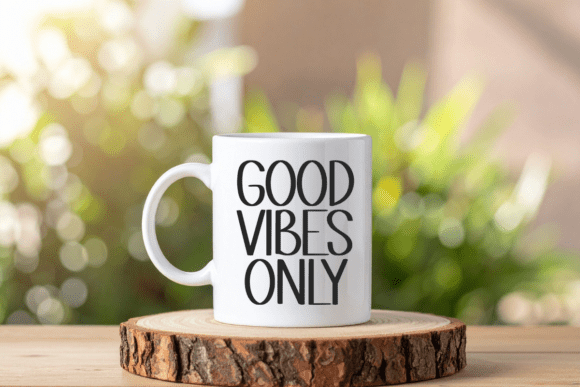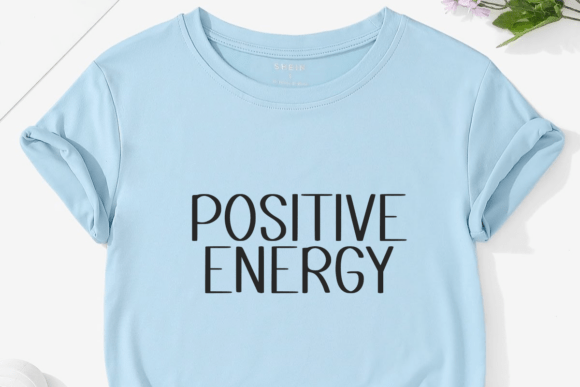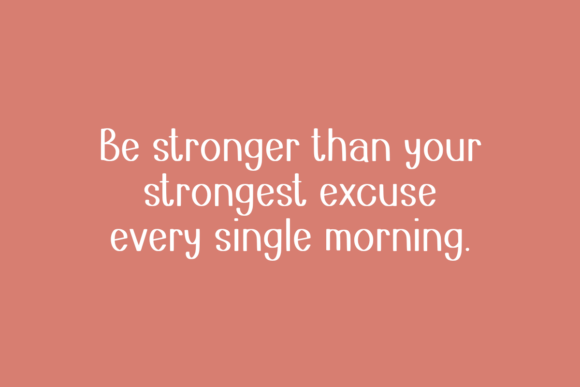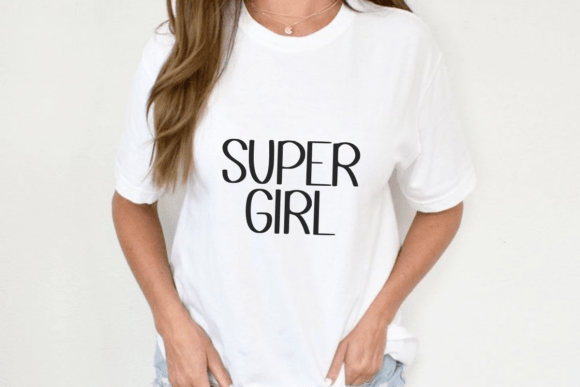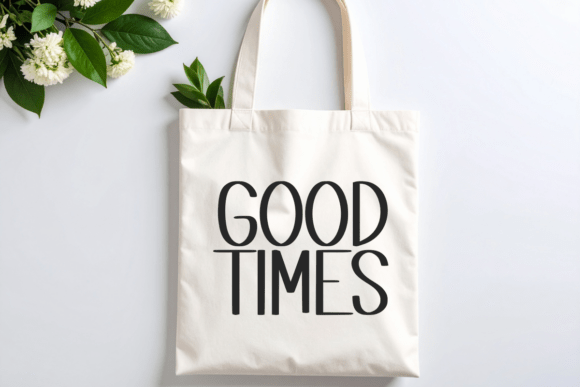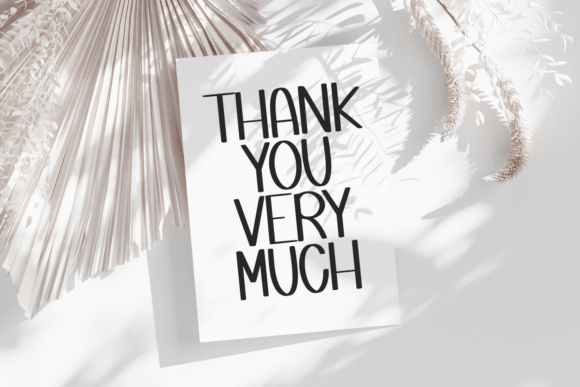
Introducing Chunky Cupid Font: The Perfect Handwriting Font for Crafty Projects
Are you a crafter, designer, or DIY enthusiast looking for a font that adds a touch of warmth and personality to your projects? Look no further than Chunky Cupid Font, a delightful handwriting font designed to bring a soft, friendly, and natural look to your creations. In this article, we’ll explore the features and benefits of Chunky Cupid Font, and how it can elevate your craft projects, planners, stickers, kids’ worksheets, classroom printables, and DIY designs.
The Charm of Chunky Cupid Font
Chunky Cupid Font is a cute handwriting font that exudes a warm, handcrafted feeling. Its simple strokes and smooth curves make it easy to read and visually appealing. The font’s chunky design gives it a playful and whimsical feel, perfect for crafting moms and designers who love adorable handwritten styles. With Chunky Cupid Font, you can add a personal touch to your projects and make them stand out from the crowd.
Ideal for Craft Projects and DIY Designs
Chunky Cupid Font is specifically designed for crafty projects, making it an excellent choice for:
- Craft projects: Use Chunky Cupid Font to add a personal touch to your craft projects, such as scrapbooking, card making, and paper crafting.
- Planners and journals: Add a playful and whimsical touch to your planners, bullet journals, and journals with Chunky Cupid Font.
- Stickers and labels: Use Chunky Cupid Font to create adorable stickers and labels for kids’ projects, gifts, and DIY designs.
- Kids’ worksheets and classroom printables: Make learning fun with Chunky Cupid Font, perfect for kids’ worksheets, classroom printables, and educational resources.
- DIY designs: Add a personal touch to your DIY designs, such as signs, banners, and decorations, with Chunky Cupid Font.
Perfect for Cutting with Cricut and Silhouette
One of the best features of Chunky Cupid Font is its compatibility with cutting machines like Cricut and Silhouette. The font’s simple strokes and smooth curves make it easy to cut, allowing you to create intricate designs and shapes with ease. This makes Chunky Cupid Font perfect for crafting moms and designers who love to work with cutting machines.
Use Chunky Cupid Font for a Variety of Projects
The versatility of Chunky Cupid Font makes it suitable for a wide range of projects, including:
- Quotes and posters: Use Chunky Cupid Font to create inspiring quotes, posters, and signs for your home or office.
- Greeting cards and invitations: Add a personal touch to your greeting cards, invitations, and party decorations with Chunky Cupid Font.
- Kids’ labels and stickers: Create adorable labels and stickers for kids’ projects, gifts, and school supplies.
- Coloring pages and worksheets: Make learning fun with Chunky Cupid Font, perfect for coloring pages, worksheets, and educational resources.
- Bullet journals and scrapbooks: Use Chunky Cupid Font to add a playful and whimsical touch to your bullet journals and scrapbooks.
In conclusion, Chunky Cupid Font is a delightful handwriting font that brings a soft, friendly, and natural look to your craft projects, planners, stickers, kids’ worksheets, classroom printables, and DIY designs. Its simple strokes and smooth curves make it easy to cut using Cricut and Silhouette, and perfect for crafting moms who love adorable handwritten styles. With its versatility and charm, Chunky Cupid Font is sure to become a favorite among designers and crafters. So why wait? Download Chunky Cupid Font today and start creating adorable projects that showcase your personality and style!